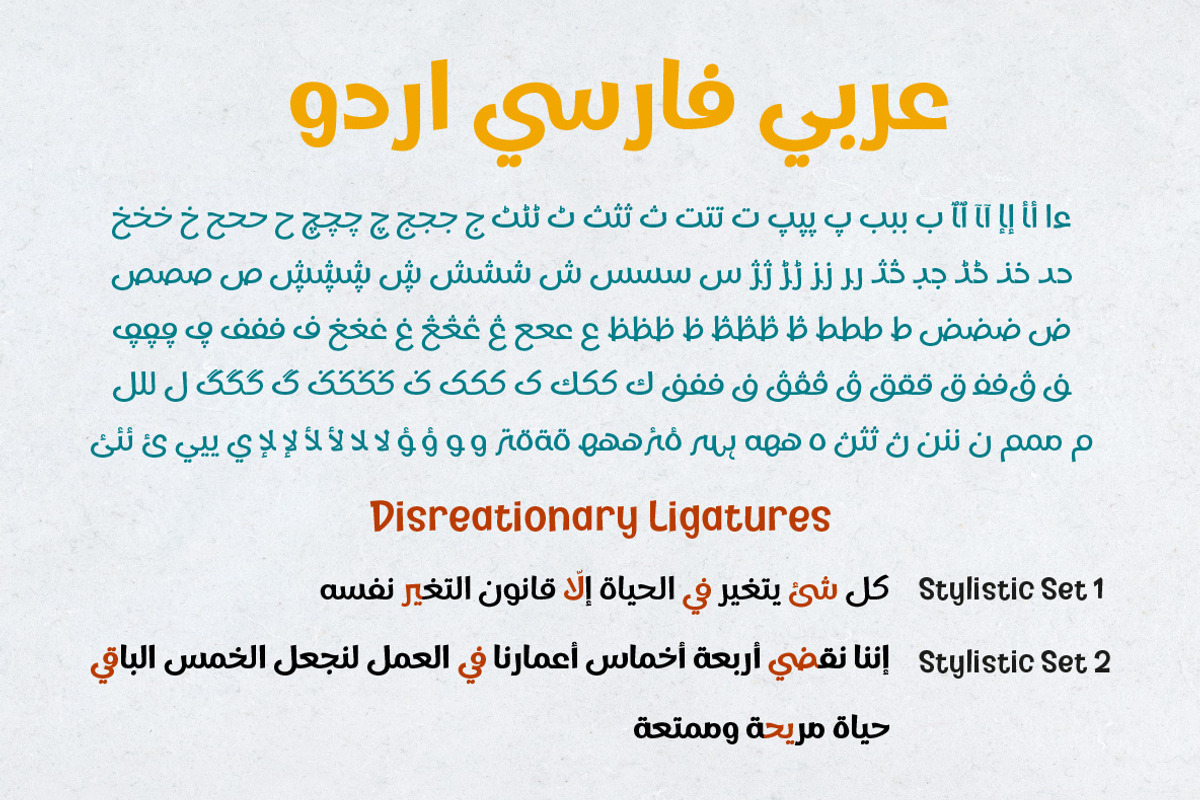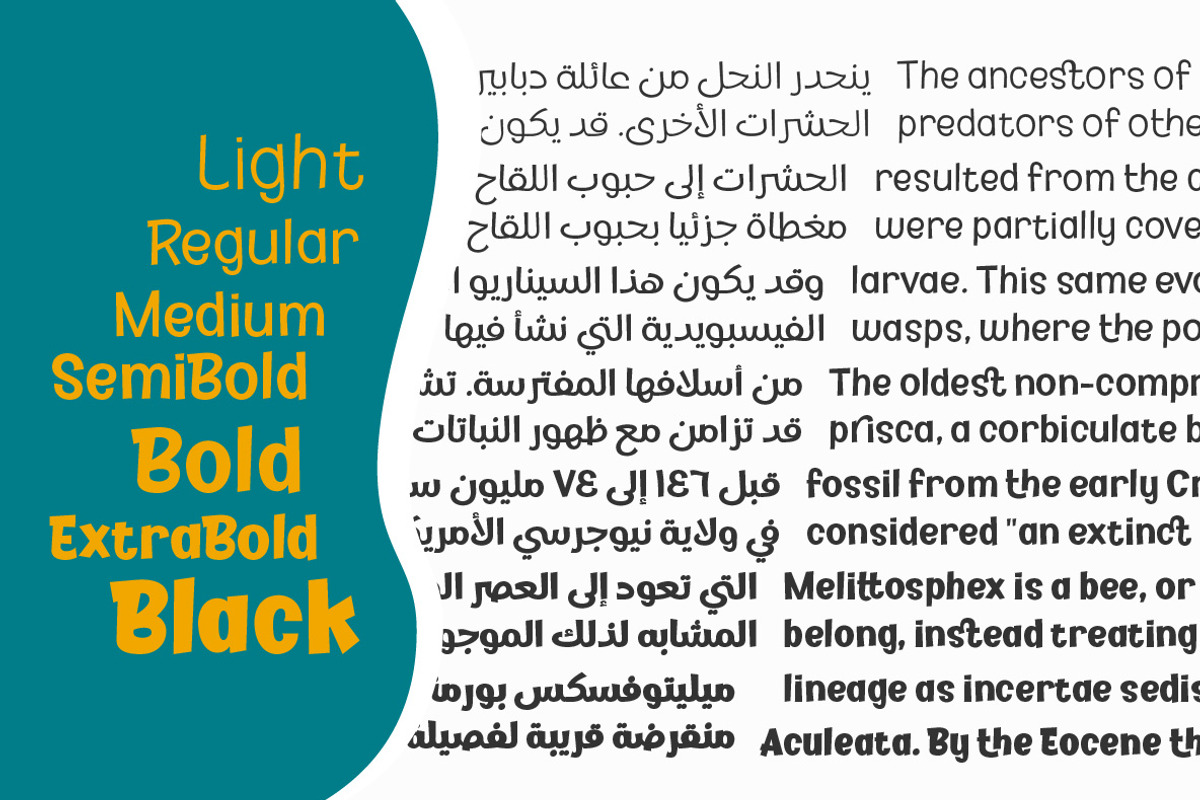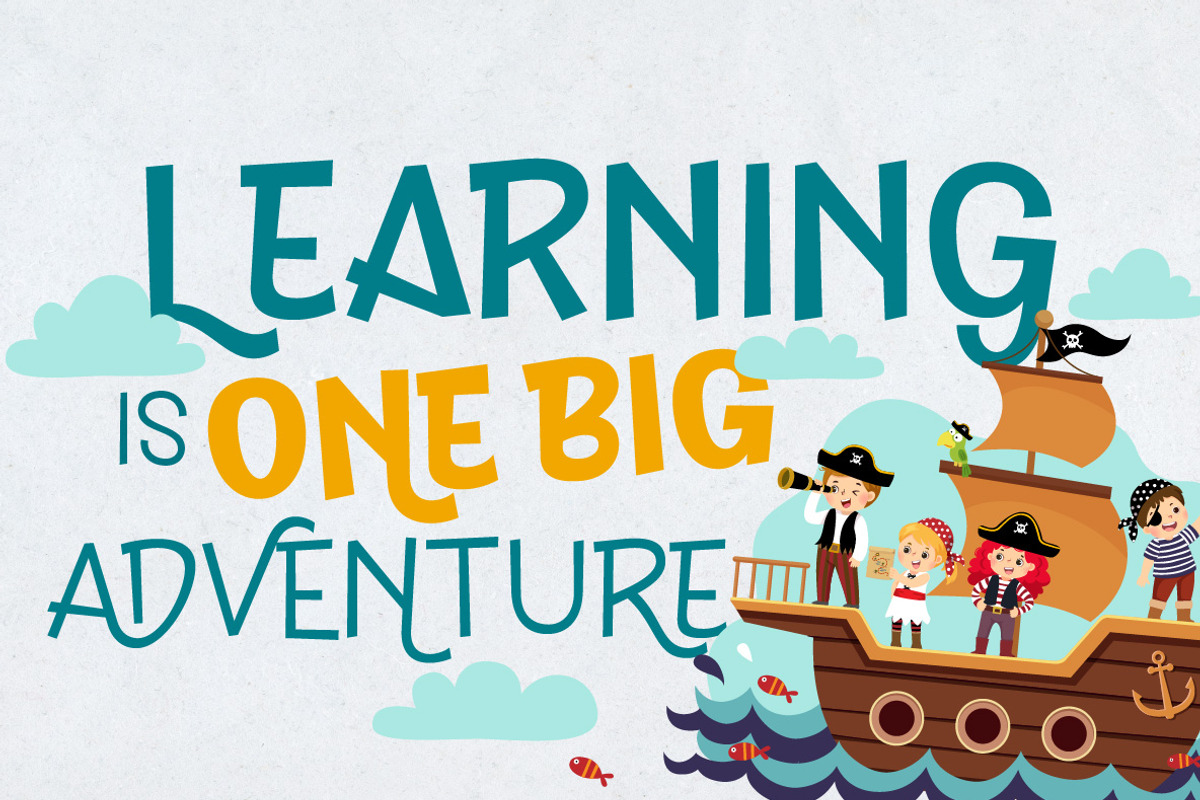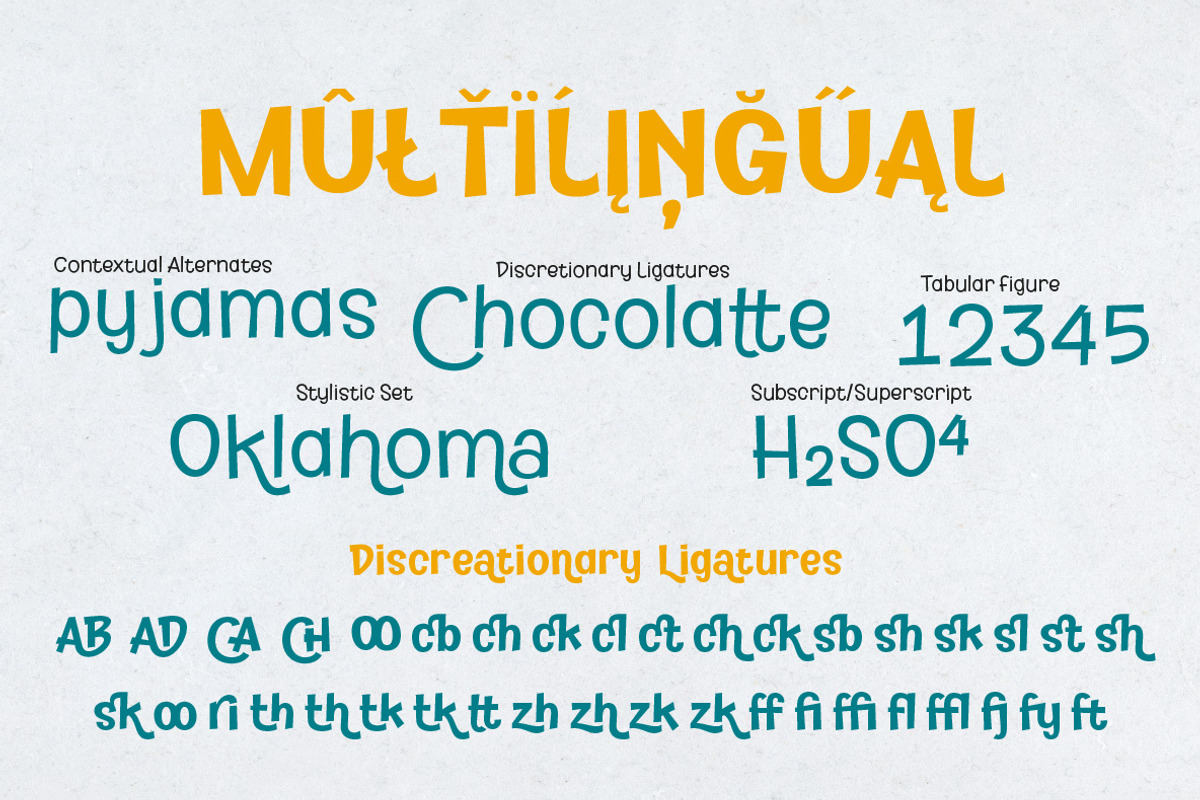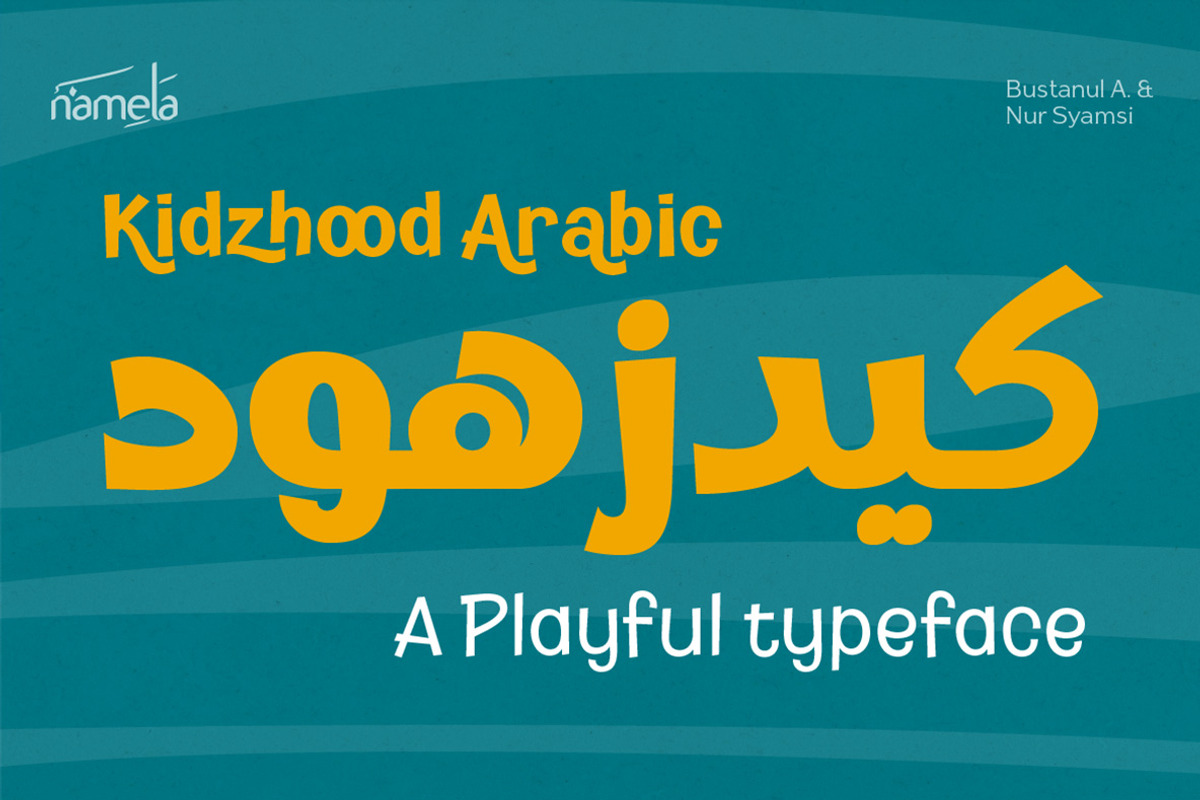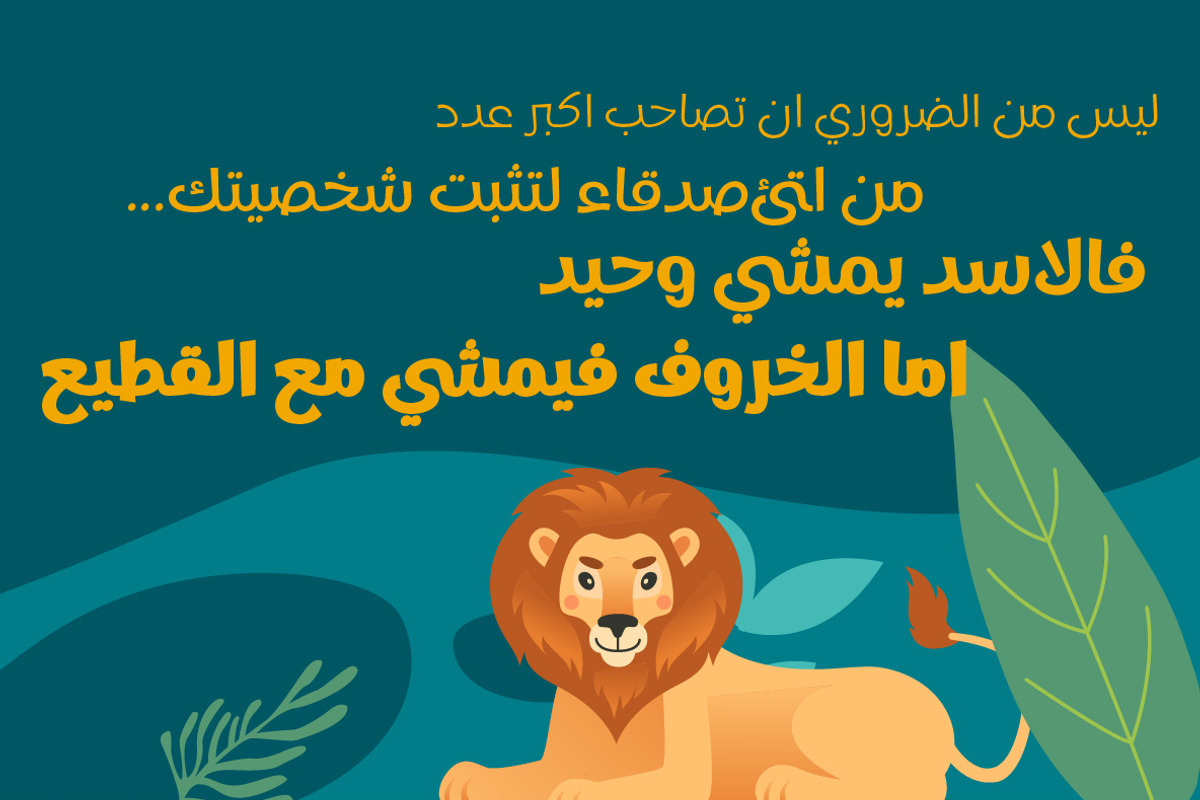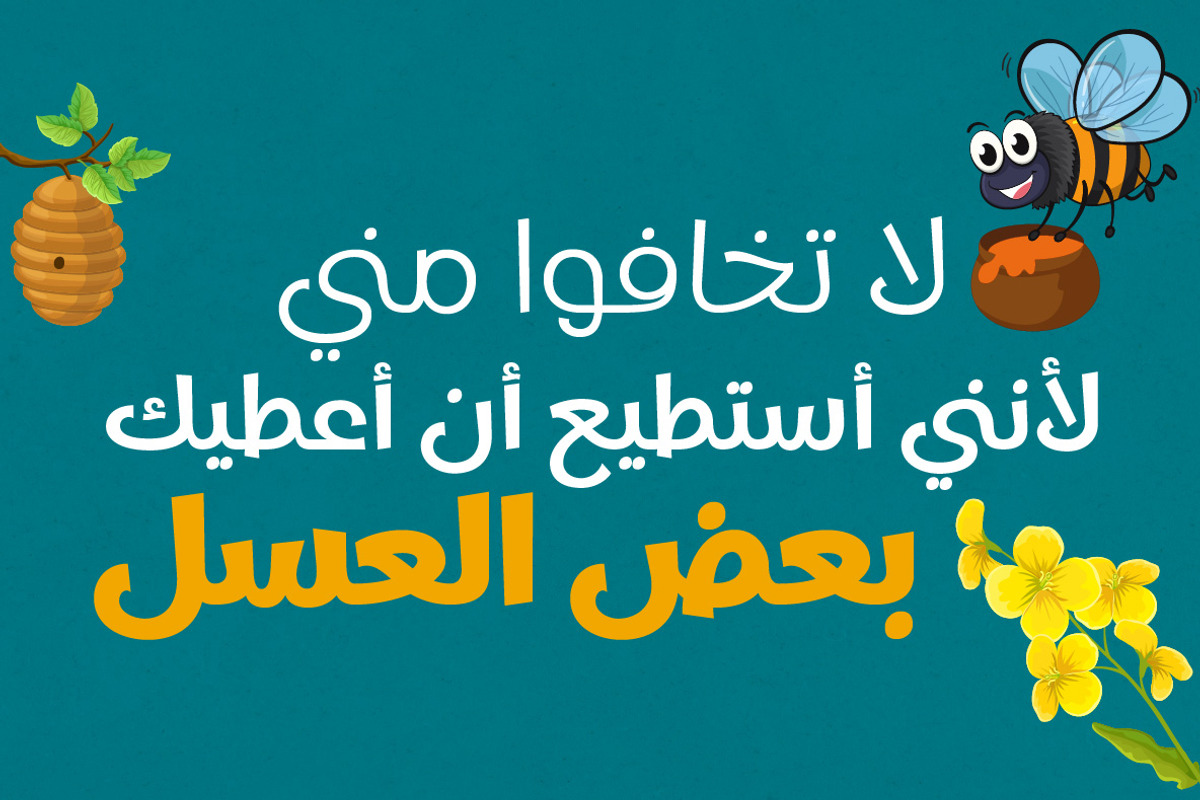
Kidzhood Arabic - Playful font
Kidzhood Arabic Cute font is a delightful and whimsical typeface that brings the charm of childhood to life. Its characters are imbued with a sense of humor and flexibility, mirroring the endearing qualities of childish innocence. With its adorable letterforms and captivating ligatures.
Kidzhood Arabic perfect choice for projects that aim to capture the spirit of youth and joy. Kidzhood Arabic Cute font is sibling of Kidzhood with the addition of Arabic glyphs, for Arabic, Urdu, and Farsi.